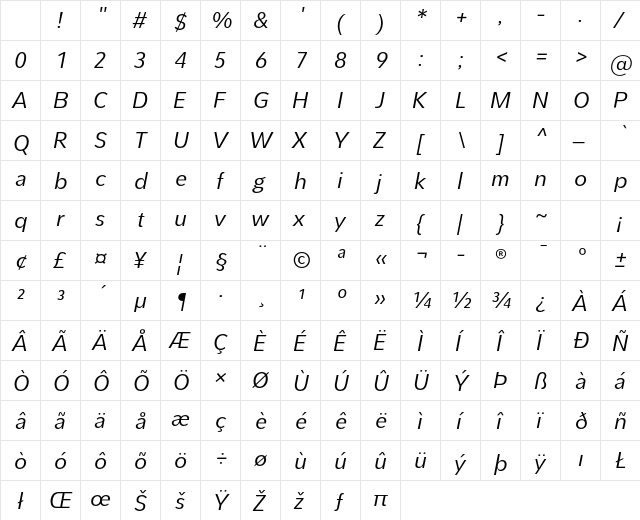
Complete Pelita Grande Std Italic glyph index. Displaying only characters natively supported by Pelita Grande Std Italic font.
Pelita Grande Std is a composed and adaptable typeface that performs quietly and consistently across a wide range of design contexts. The slanted form adds forward momentum and visual energy.